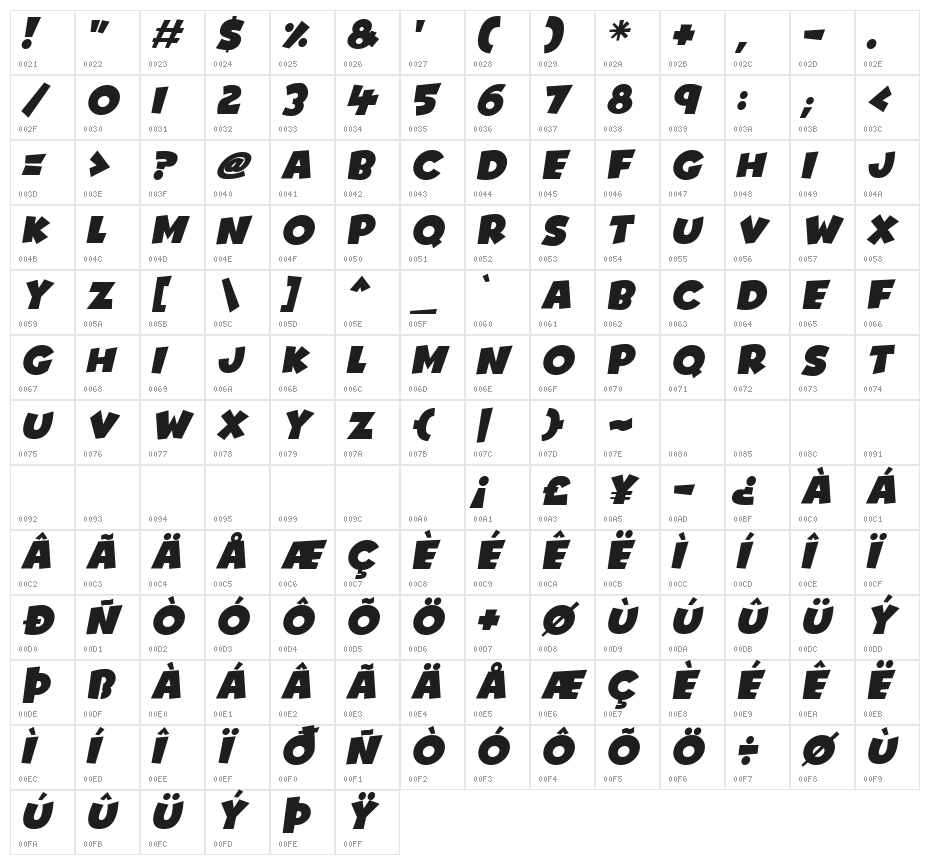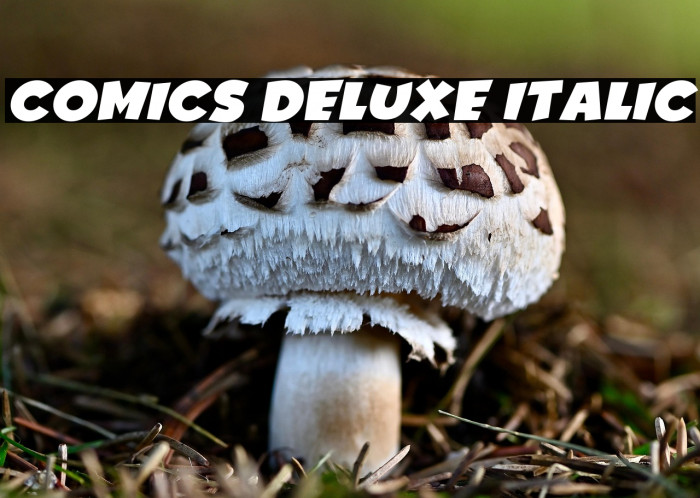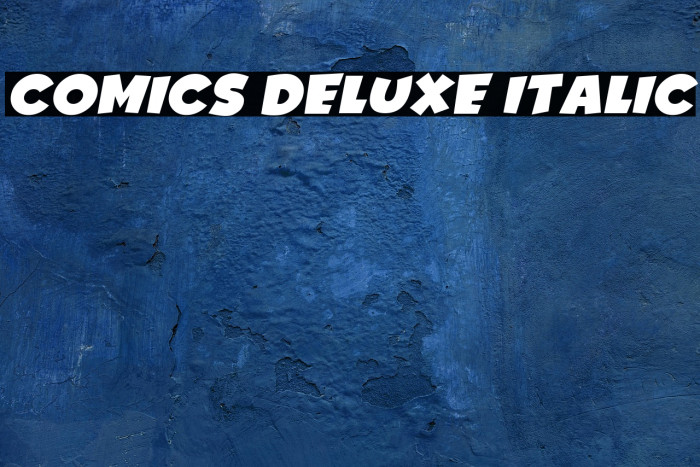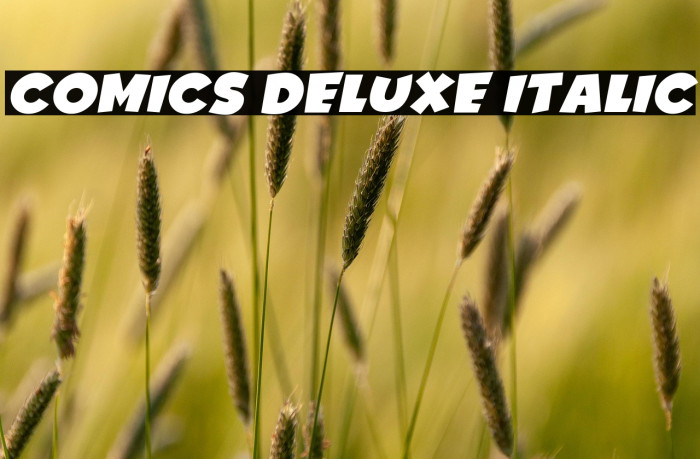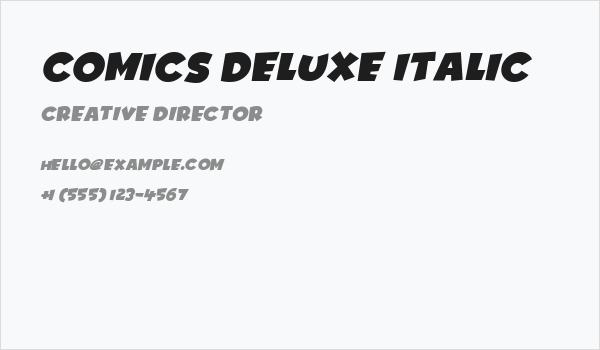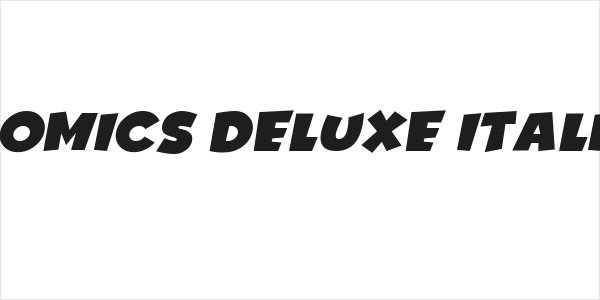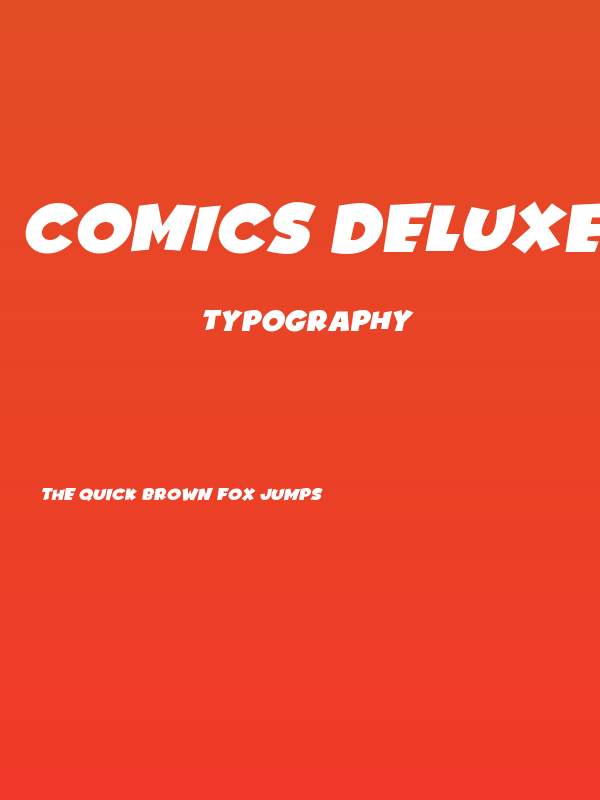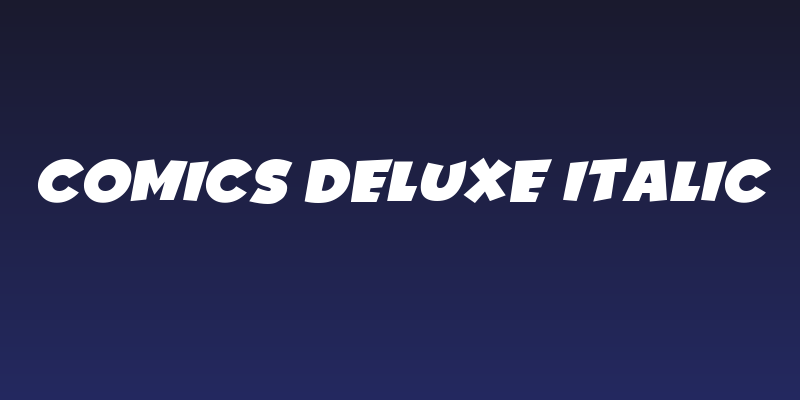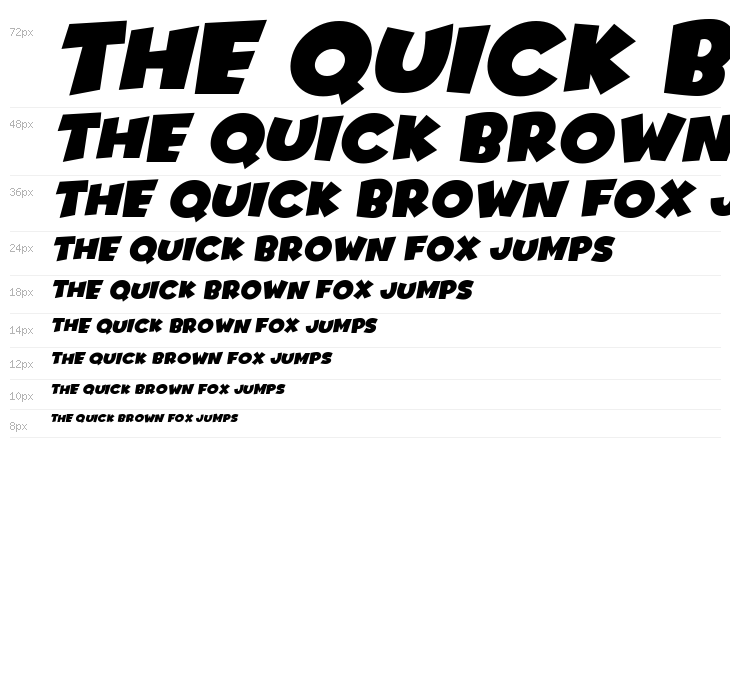
Comics Deluxe Italic Font
Comics Deluxe Italic Description
This font features bold, dynamic characters with a playful and energetic style. The letters are italicized, giving a sense of movement and excitement. The strokes are thick and consistent, providing a strong visual impact. The characters are slightly condensed, enhancing their bold appearance. The font includes a full set of uppercase and lowercase letters, numbers, and a variety of special characters. Its design is reminiscent of comic book lettering, making it ideal for projects that require a fun and engaging aesthetic.
| Overall Style | Playful, Energetic |
| Proposed Projects | Ideal for comic books, children's books, playful branding, and posters. |